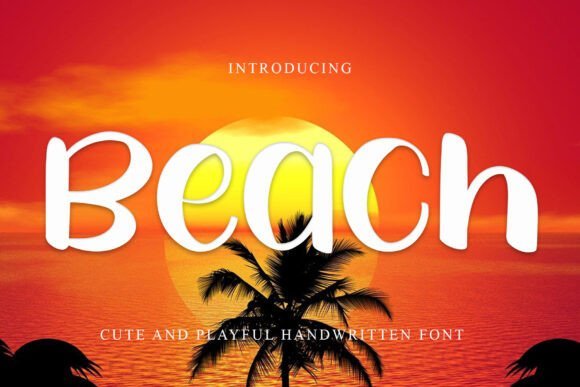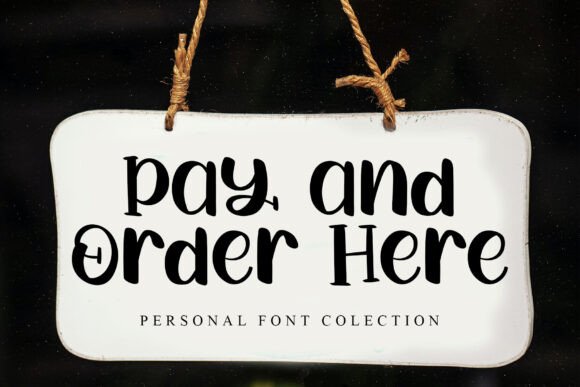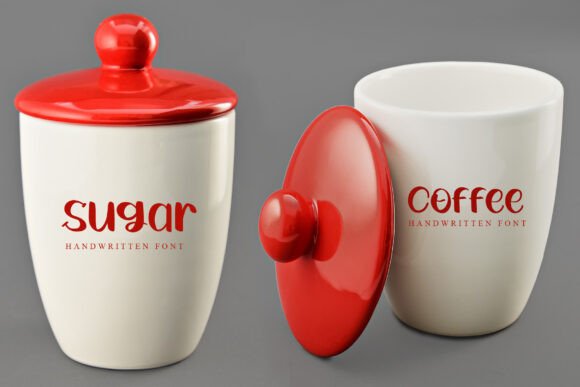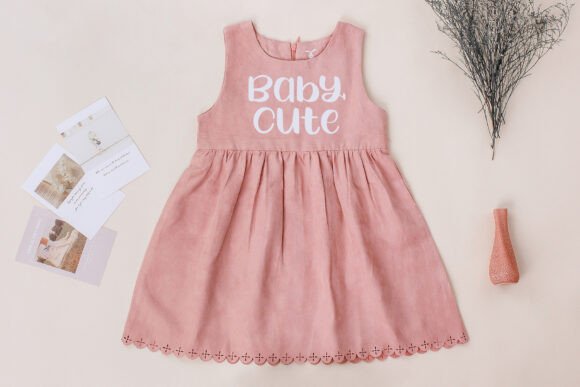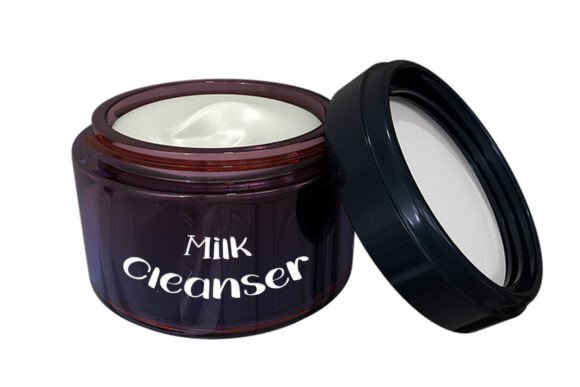
Where Creativity Meets the Coast
Have you ever been inspired by a sunset over the ocean? The gentle waves, the warm sand, and the vibrant colors of the sky all combine to spark a sense of creativity within us. For designers, this feeling can be a powerful catalyst for new ideas and projects.
One font that embodies the carefree spirit of the beach is Beach Font. This sweet and friendly handwritten font is designed to add a touch of natural charm to any design. With its unique style and versatility, Beach Font is the perfect choice for designers looking to create a wide range of projects, from invitations and social media graphics to branding and packaging.
Beach Font Key Features
- Unique Characteristics: Beach Font features a unique, hand-drawn design with a relaxed, casual feel, perfect for use in beach-themed or summer-inspired designs.
Beach Font Review
Beach Font is a fun, laid-back font that’s perfect for projects that need a relaxed vibe. I think it works well for ✨ casual blog posts, ✨ social media graphics, and ✨ merchandise designs. The font’s playful, handwritten feel adds a touch of personality to any design.
- Wide range of styles and weights: Beach Font comes in multiple styles, from casual to bold, making it versatile for different design needs.
- Customizable: The font can be easily customized to fit your brand’s color scheme and style.
- Great for on-brand projects: Beach Font is perfect for projects that require a consistent, relaxed tone.
However, there are some limitations to consider: ⚠️ Beach Font might not be suitable for formal or professional projects, as its casual, handwritten feel may not convey the desired level of professionalism. Additionally, some users may find the font’s irregularities and imperfections distracting.
Overall, Beach Font is a great choice for designers who want to add a relaxed, beachy vibe to their projects. While it may not be the best fit for every design need, it’s a fun and versatile font that can add personality to a variety of projects.
Tips for Getting the Most Out of Beach Font
Use Beach Font to add a playful, beachy vibe to your designs, such as beach-themed invitations, summer posters, or travel brochures.
Combine Beach Font with other creative fonts and graphics to create a unique and eye-catching visual style.
Experiment with different font sizes, colors, and styles to achieve the desired level of whimsy and playfulness.
Beach Font is perfect for:
Beach-themed invitations and party decorations
Summer-themed posters and advertisements
Travel brochures and itineraries
Children’s book covers and illustrations